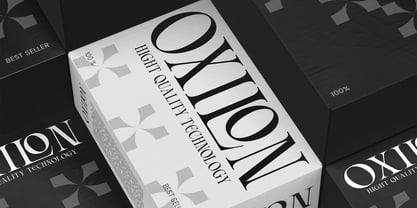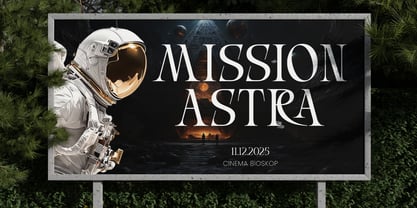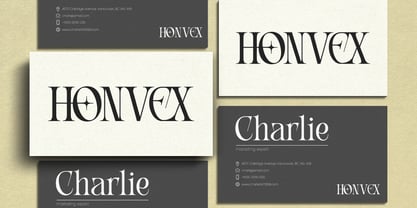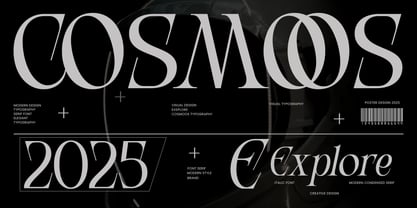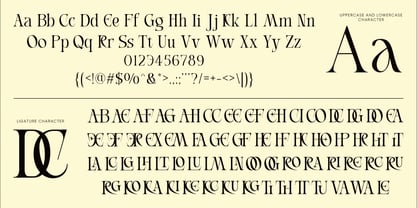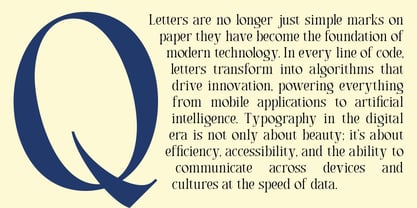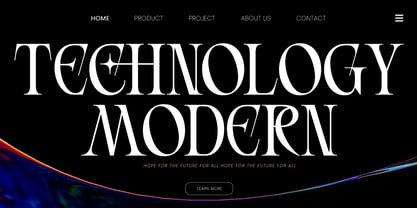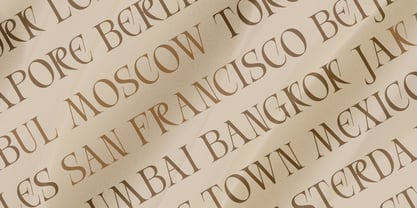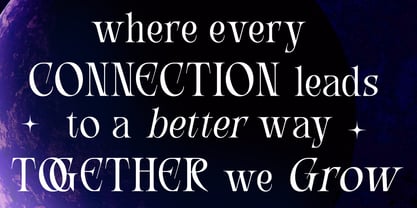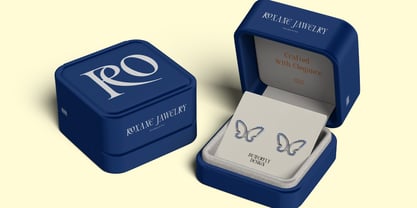
Nexus Stroke
The Nexus Stroke Font Family was designed by Bakhrudin Ja'far and published by Jafar07. Nexus Stroke contains 2 styles and family package options. More about this family
Nexus Stroke is a modern serif font designed with bold elegance and a contemporary twist. Its condensed letterforms, refined details, and 63 stylish ligatures bring sophistication that feels both timeless and innovative. With smooth kerning, graceful curves, and sleek proportions, Nexus Stroke is perfect for making strong statements while staying highly readable. From logos, branding, packaging, and fashion editorials to social media, wedding invitations, posters, and editorial layouts, this font adapts beautifully across creative projects. Nexus Stroke is crafted for designers, business owners, and creatives who want their visuals to stand out try it today and elevate your designs with a font that blends elegance and bold creativity.
A little from my personal design & background: My name is Bakhrudin Ja'far, I live in Malang, Indonesia. I am currently completing my degree in visual communication design and I have worked as a lettering artist and logo designer for many years. I finally started my studio called roocspace creative lab (jafar07) Studio a few months ago and with my team made my letters into typography.